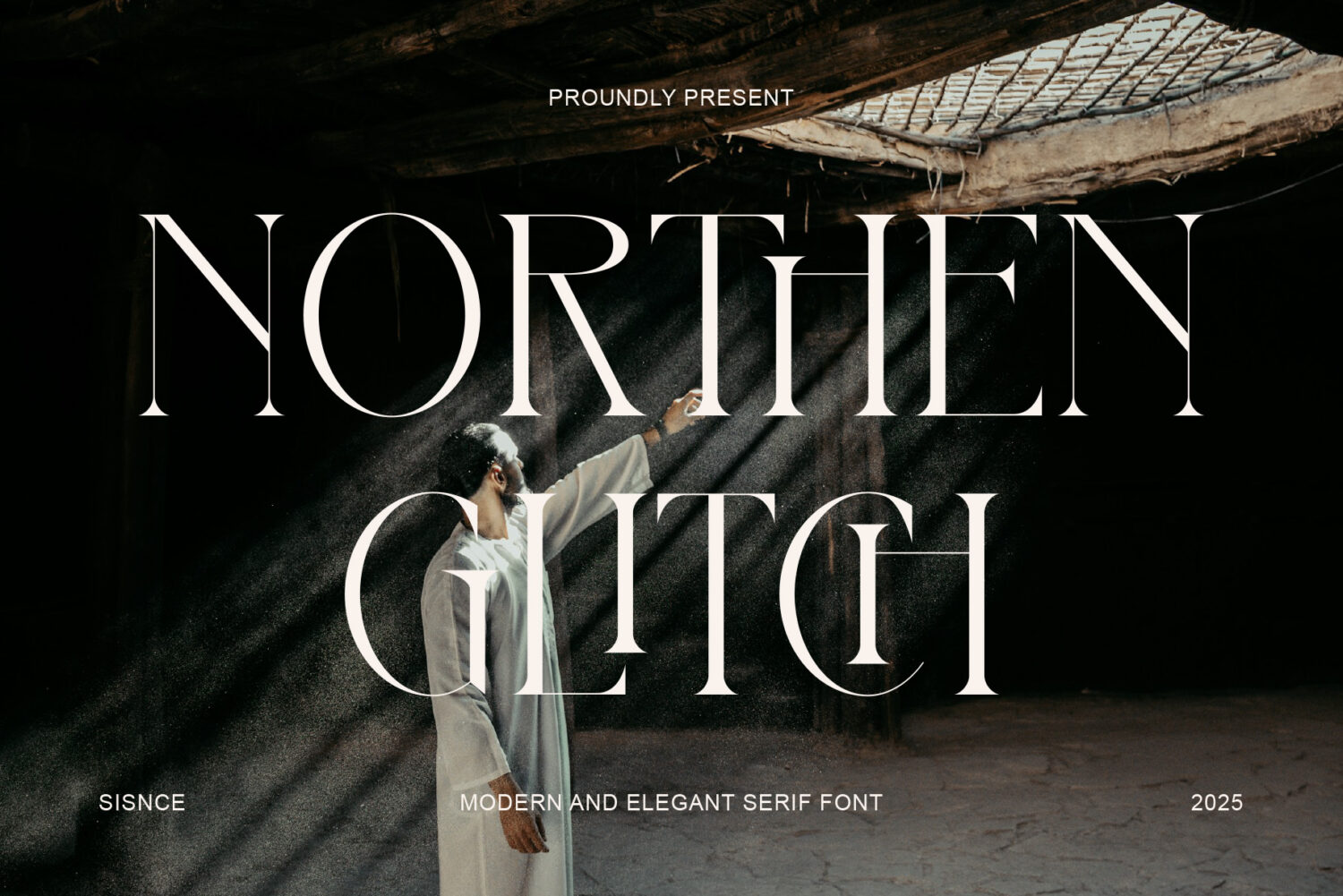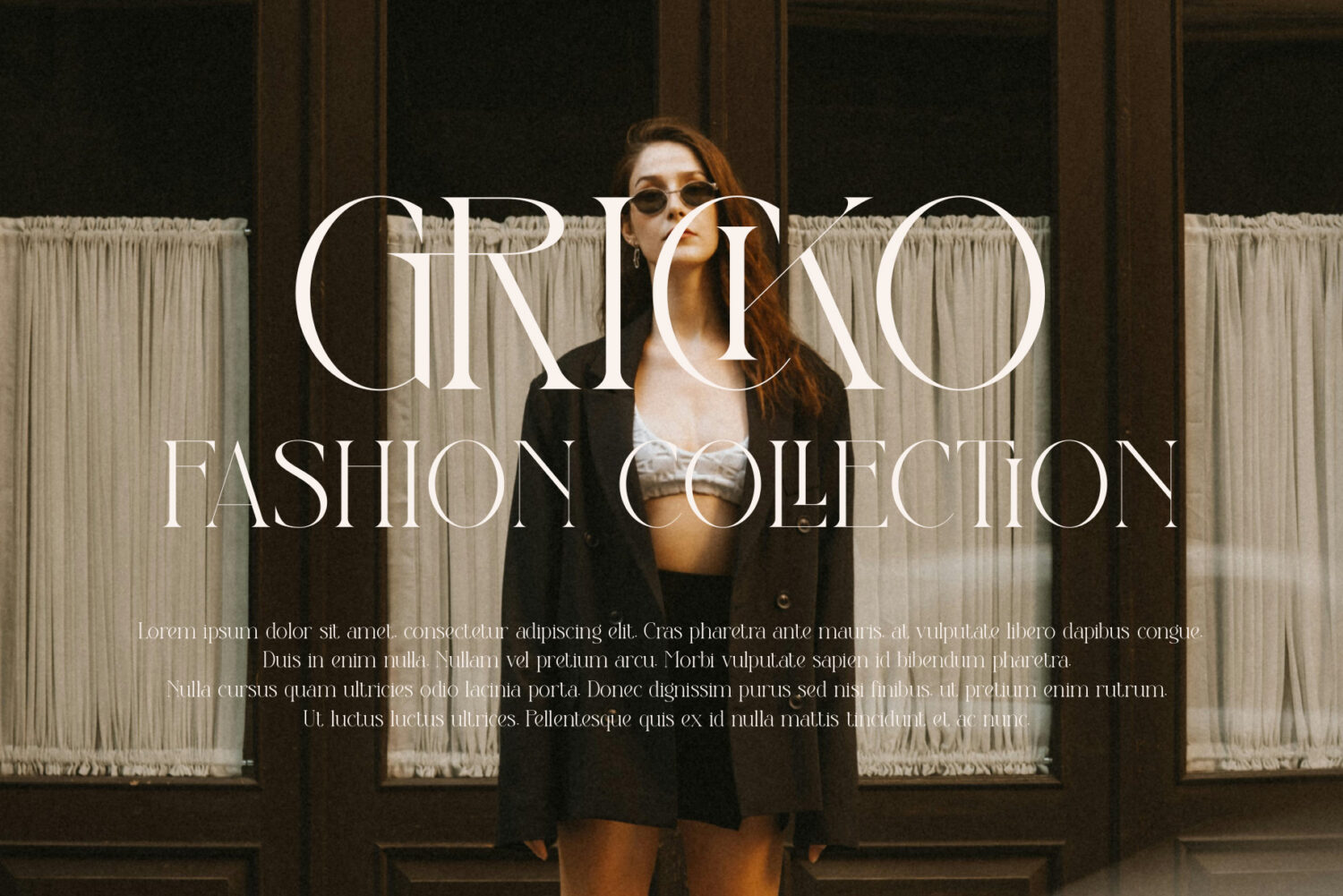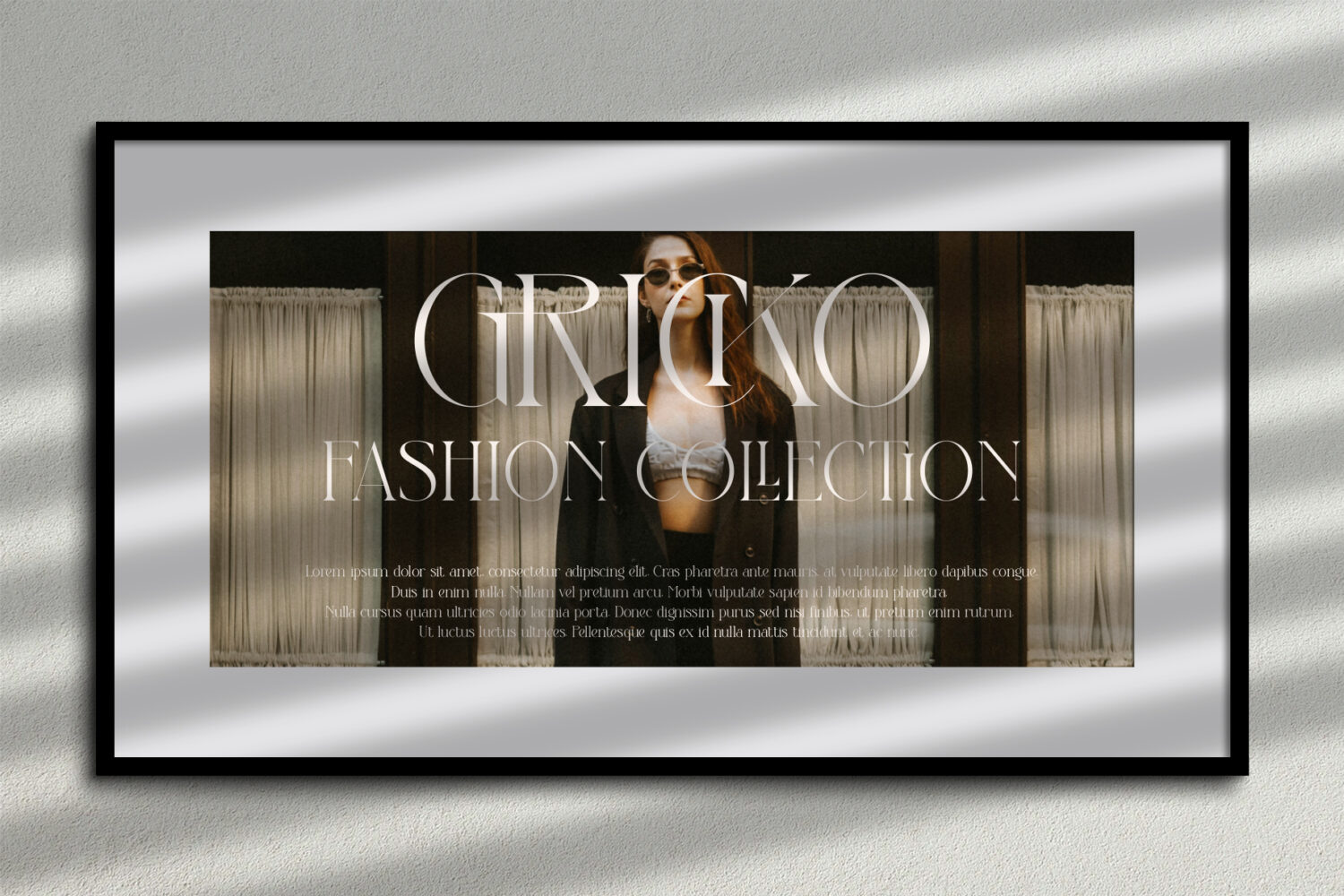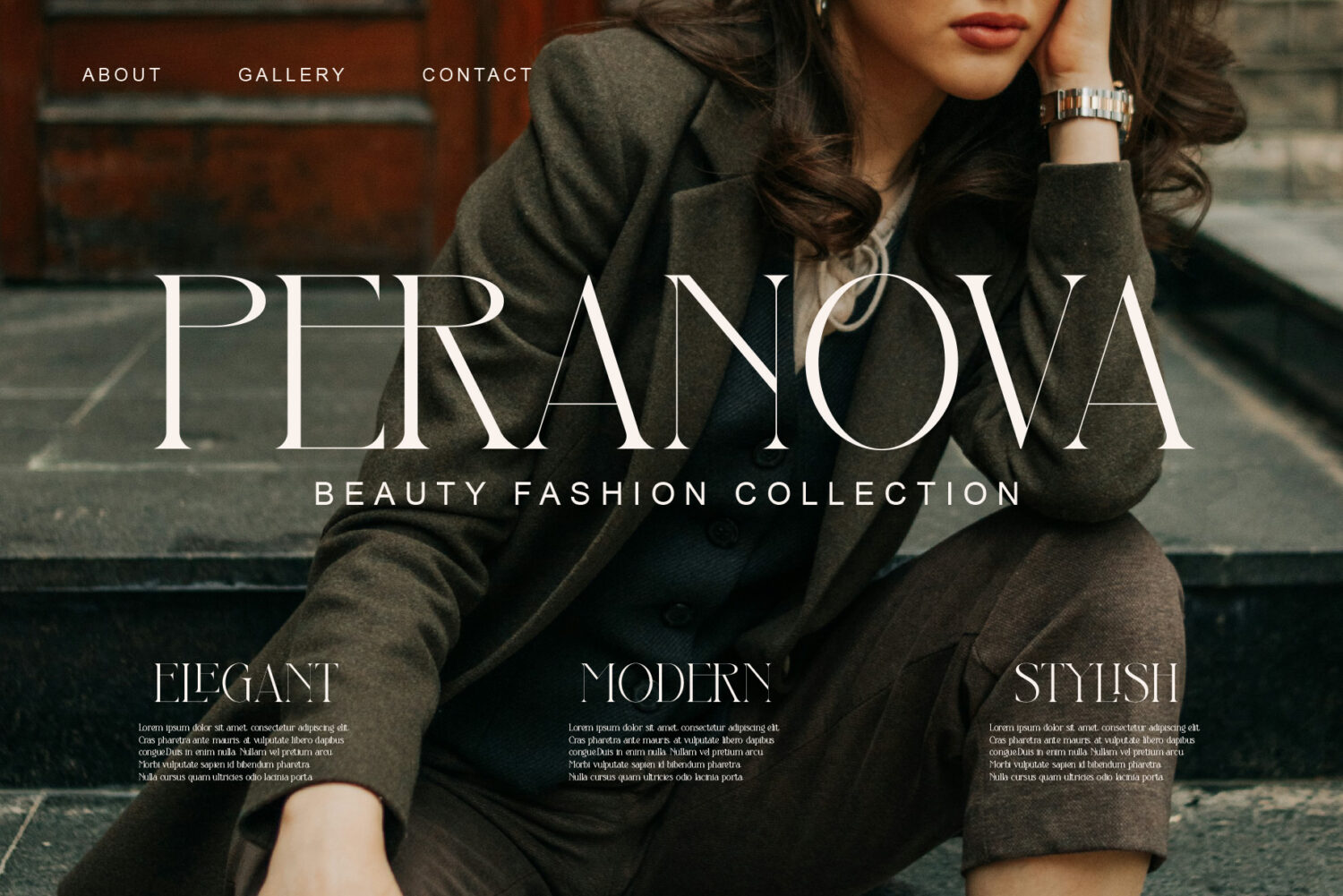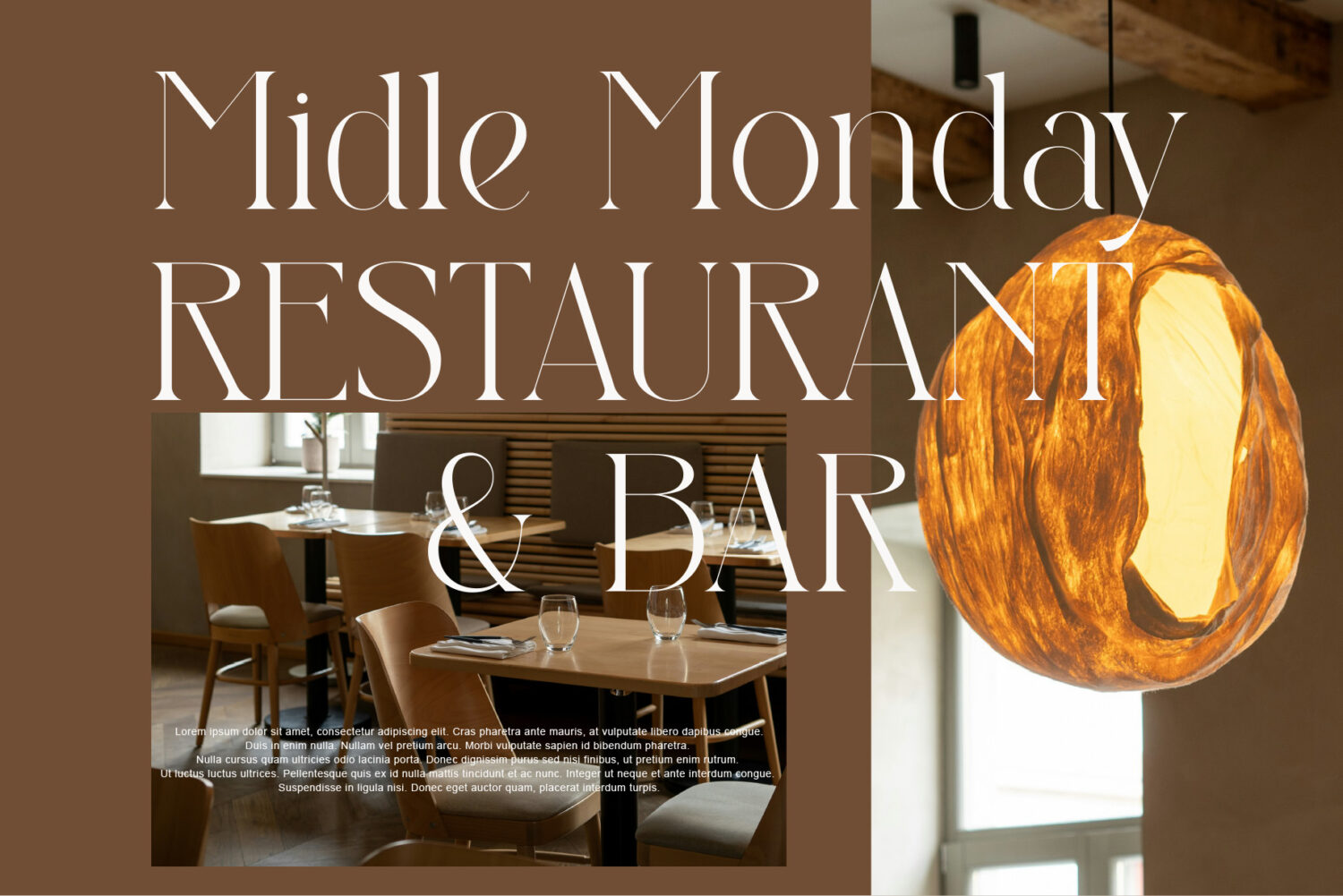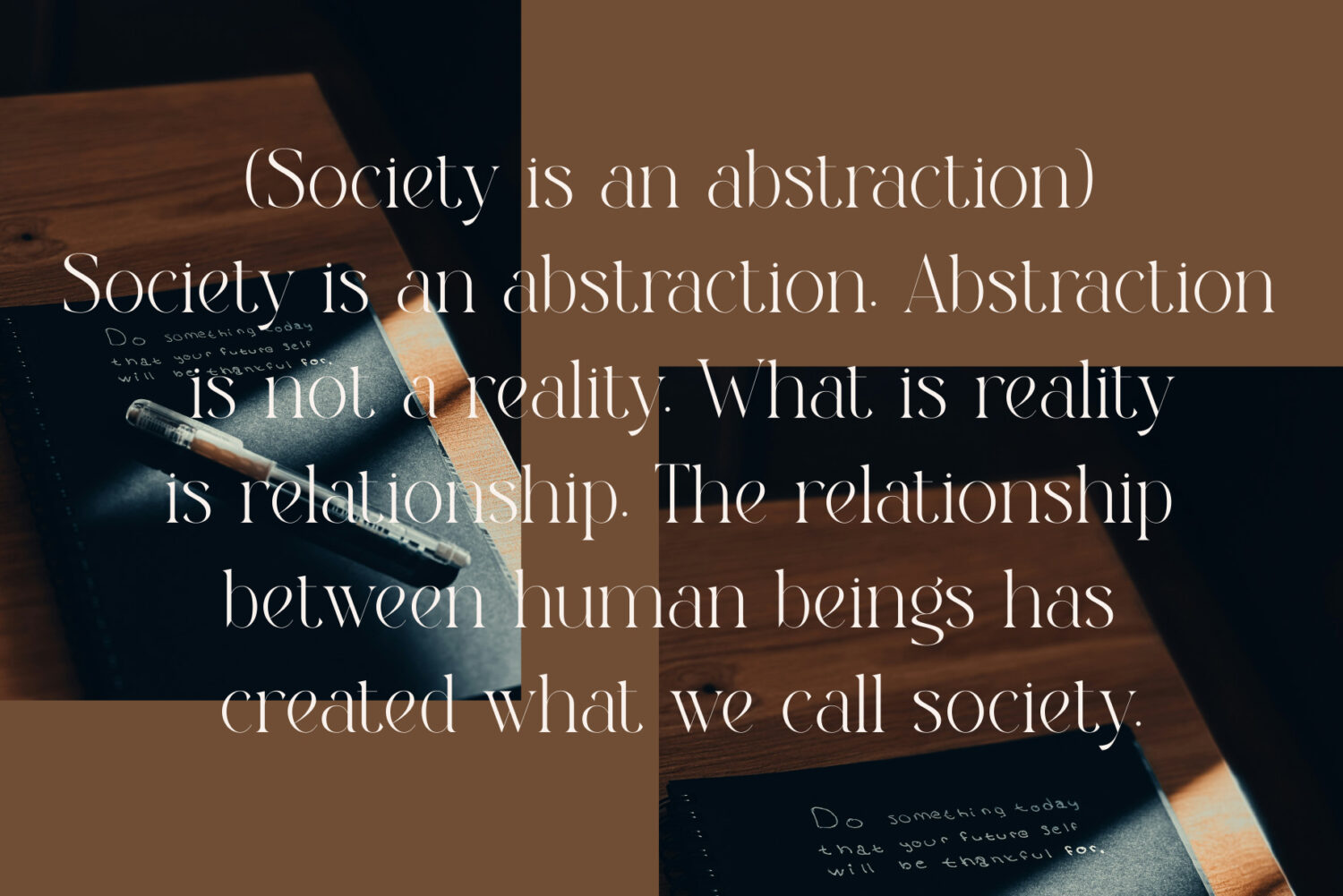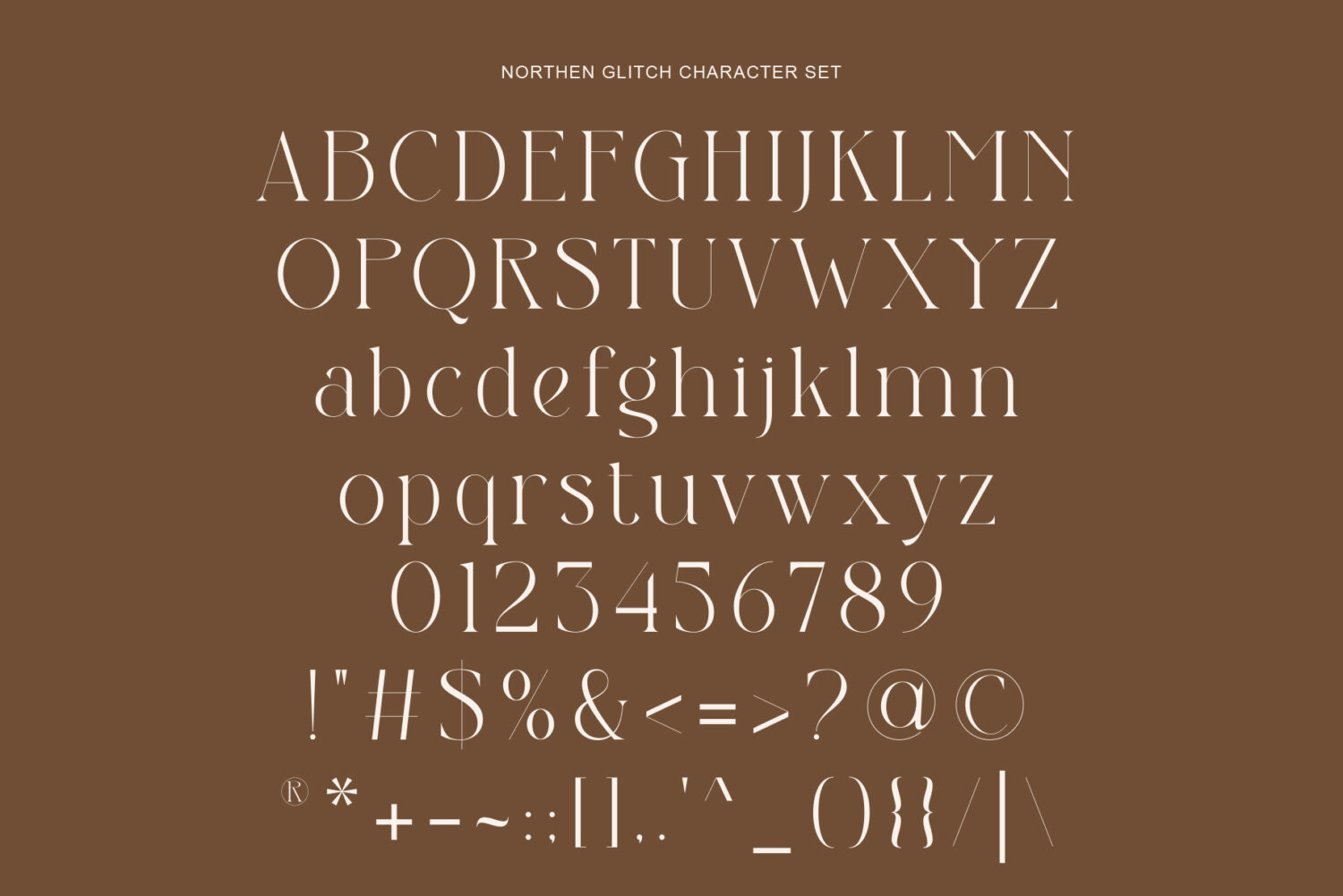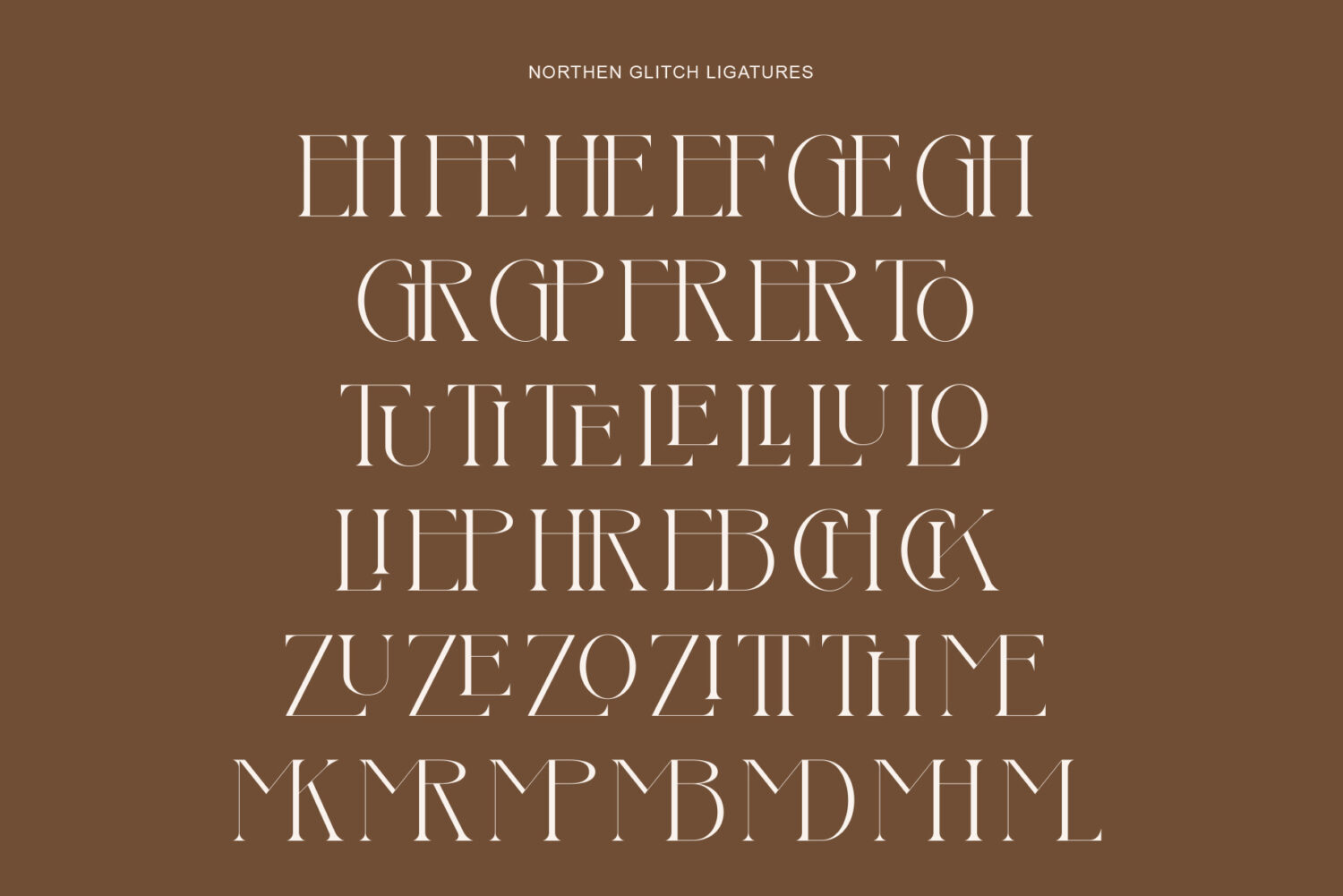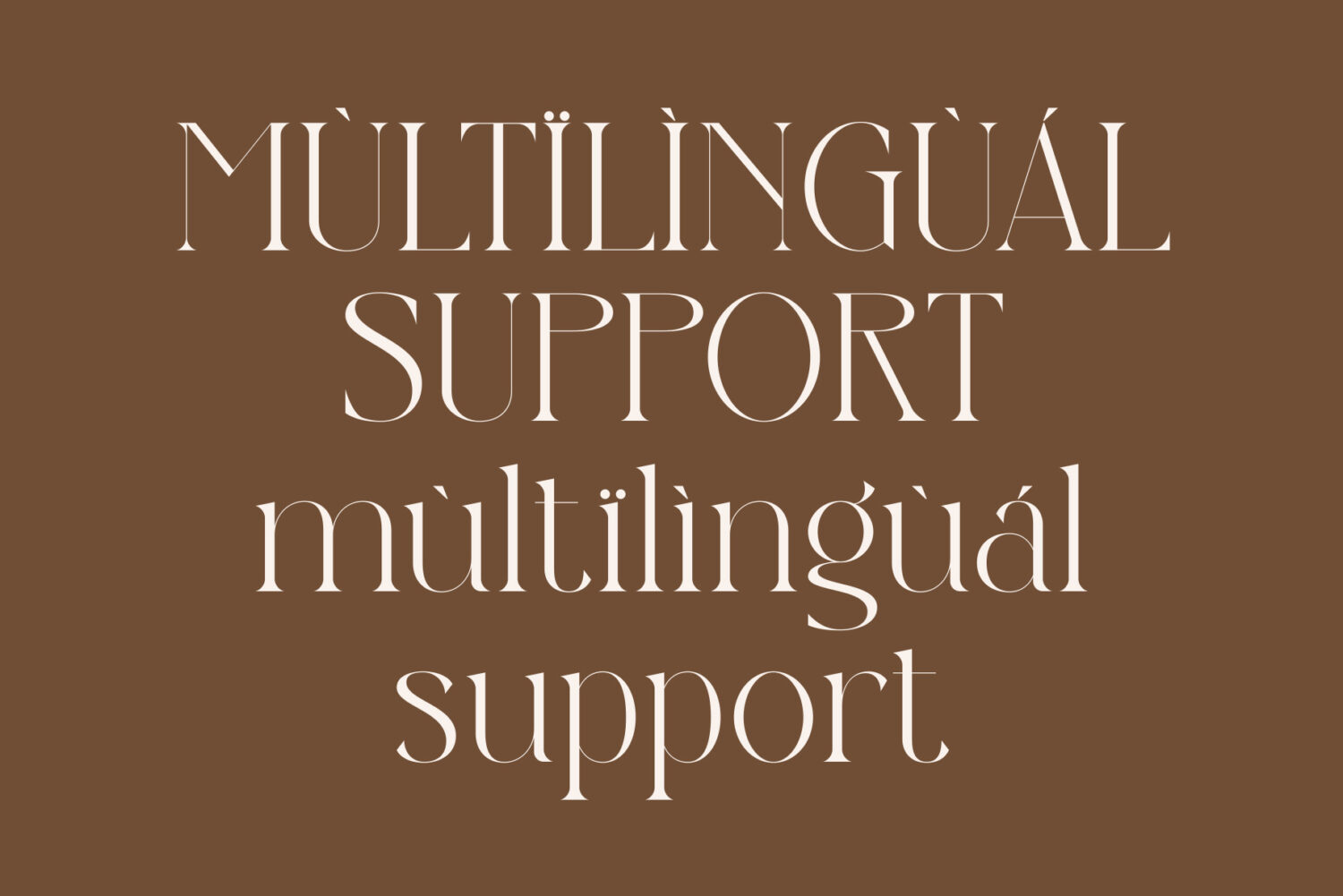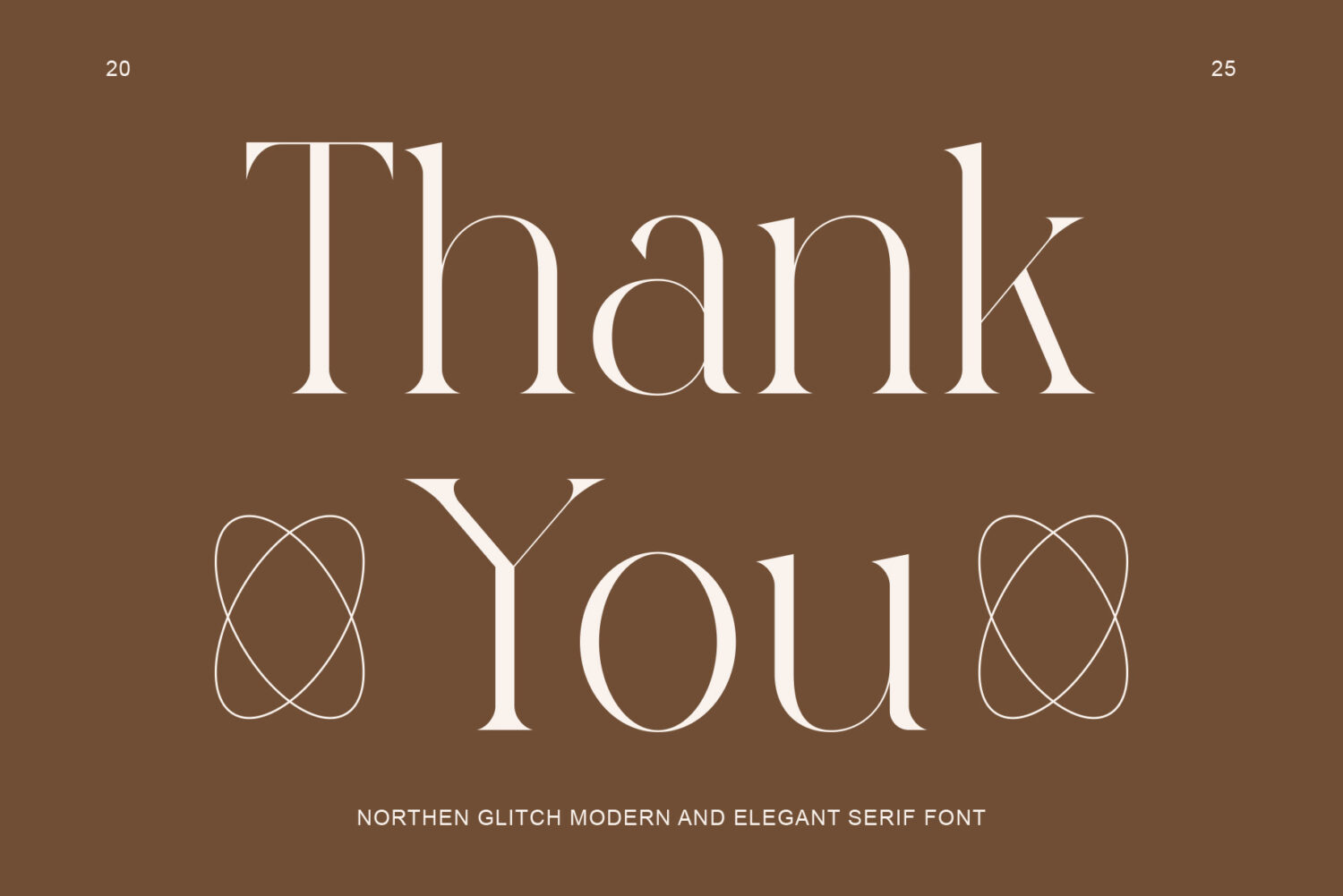
Introducing **Northen Glitch** the elegant, beautiful, and modern Serif. With its modern and minimalist look, Northen Glitch brings a luxurious, classy, and clean style to your projects such as websites, modern logos, brand identities, social media quotes, wedding stationery, magazines, and more!
Northen Glitch features unique and classy capital letters A to Z and also comes with unique alternates making Northen Glitch a beautiful font that can be customized for various projects and jobs you want.
Northen Glitch is perfect for: logos, brands, wedding invitations, business cards, greeting cards, posters, magazines, social media, agenda prints, and websites.
– Alternative styles and ligatures